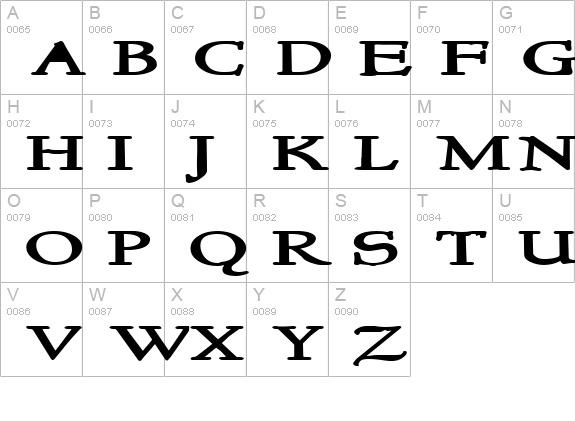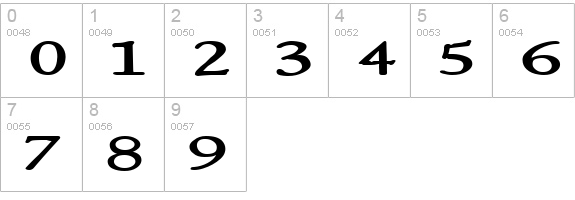
NewStyleWide Bold Font Details
NewStyleWide Bold is a strong, high-contrast variant in the NewStyleWide typeface family \xE2\x80\x94 well suited to headlines, attention-grabbing titles, and strong calls-to-action.
Introducing NewStyleWide Bold font - a modern and sleek typeface that exudes confidence and sophistication. With its wide letterforms and bold weight, this font is perfect for making a statement in headlines, titles, and branding materials. The clean lines and sharp edges of NewStyleWide Bold give it a contemporary and stylish look that will make your designs stand out. The best part? NewStyleWide Bold font is available for free download at FontsMarket.com! Whether you're a designer looking to add a fresh touch to your projects or a business owner in need of a new font for your marketing materials, NewStyleWide Bold has you covered. Don't miss out on this opportunity to elevate your designs with this versatile and eye-catching typeface. Download NewStyleWide Bold today and let your creativity shine!